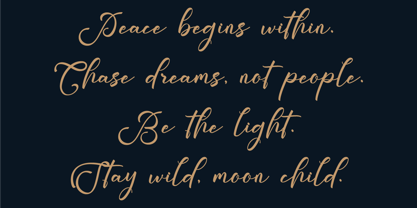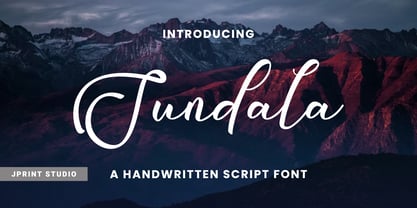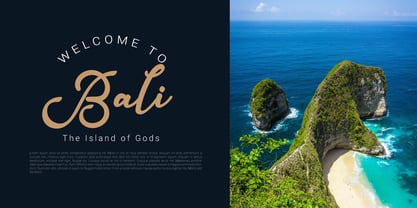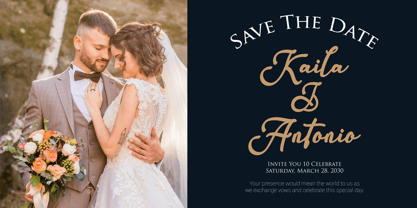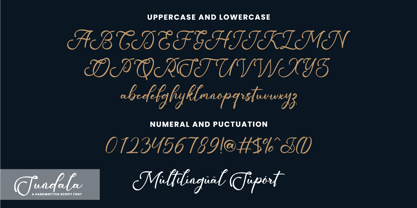
Sundala Script
by JprintStudio
The Sundala Script Font Family was designed by Gais Zaelani and published by JprintStudio. Sundala Script contains 2 styles and family package options. More about this family
Presenting Sundala - a gracefully casual script font imbued with a welcoming allure. This handwritten gem radiates a laid-back sophistication, making it the ideal pick for crafting breathtaking wedding invites, moving art pieces, or even endowing your delightful social media content and sentimental greeting cards with a personal flourish. With Sundala, the transformation of any artistic idea into a genuine marvel is fluid and effortless.